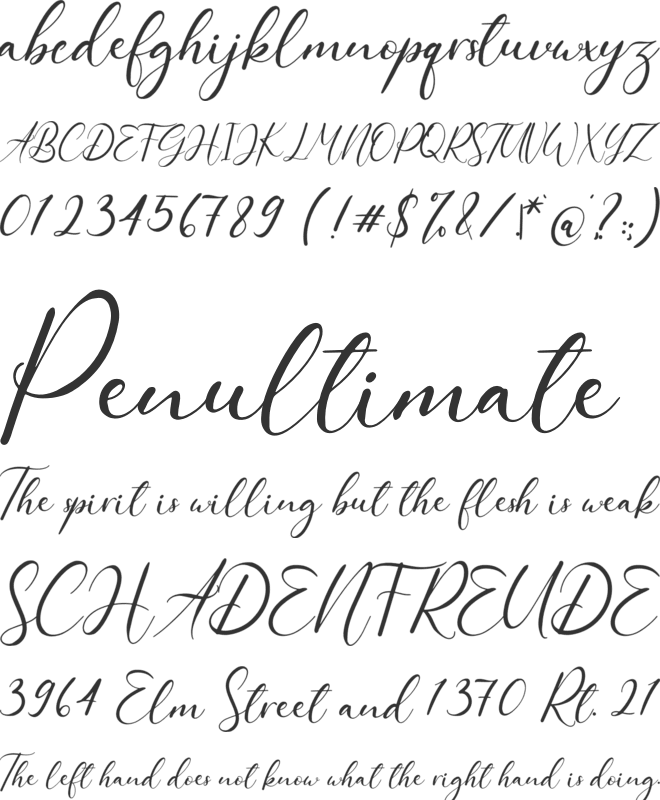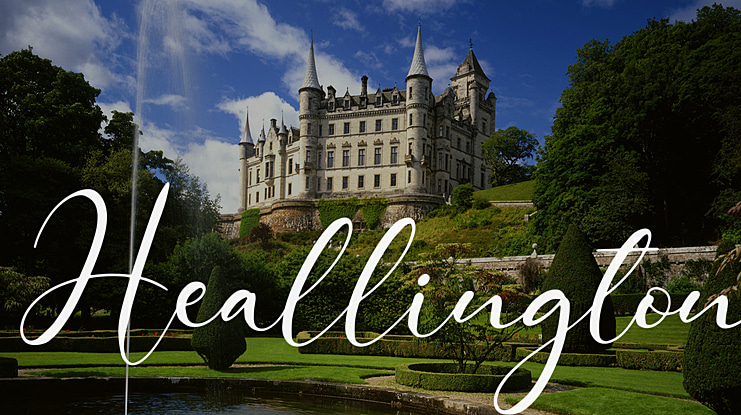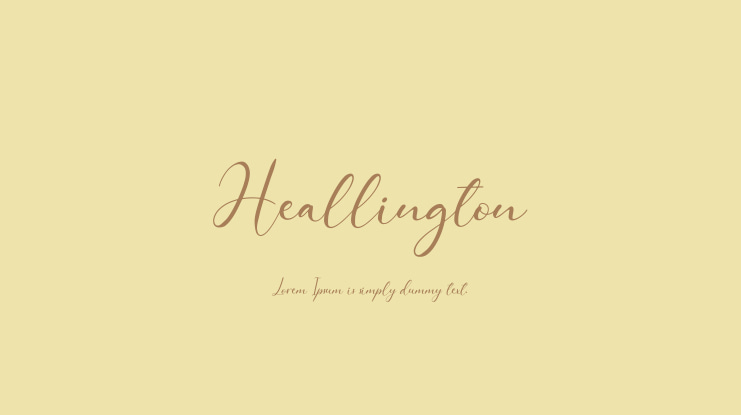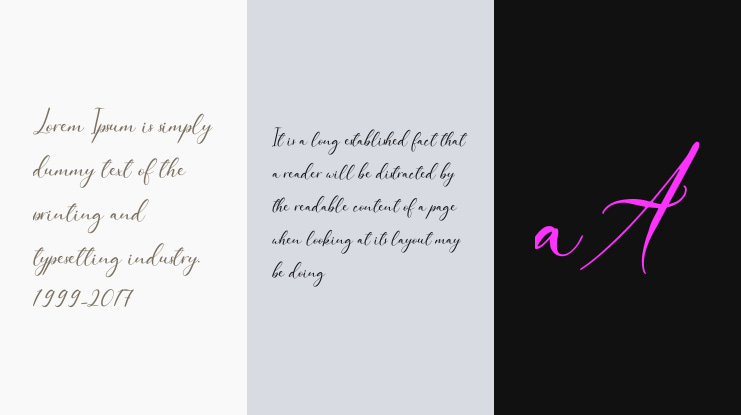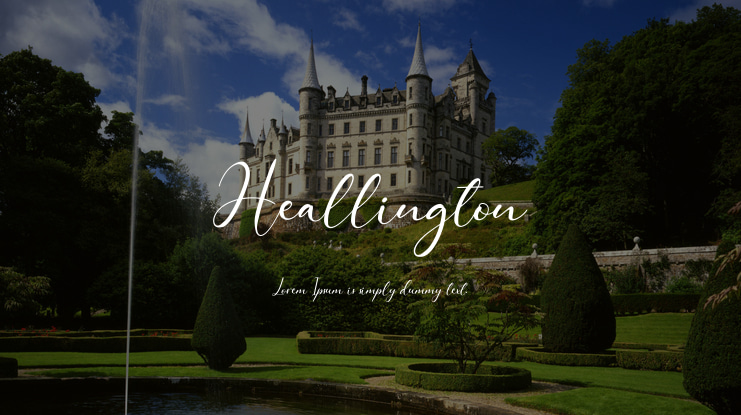
Heallington Font Family
Heallington Handwritten Typeface. A collection of letters and numbers suitable your projects also great for Logotype, Branding Design, Logo Design, Digital Lettering Arts, T-Shirt/Apparel, Poster, Magazine, Signs, Advertising Design, and any design needs.